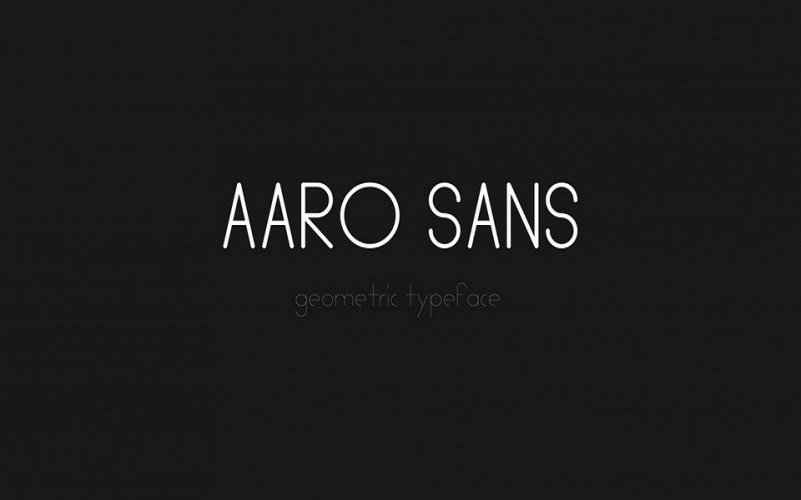
Aaro Sans Serif Font
Aaro Sans Serif Font is an elegant round typeface with 2 weight. This font is a combination between modern, beauty and simplicity. Made from font designer named Aaron Troglia. This font a rounded geometric font family in Hairline and Regular weights. The typeface designed especially for a dramatic display.